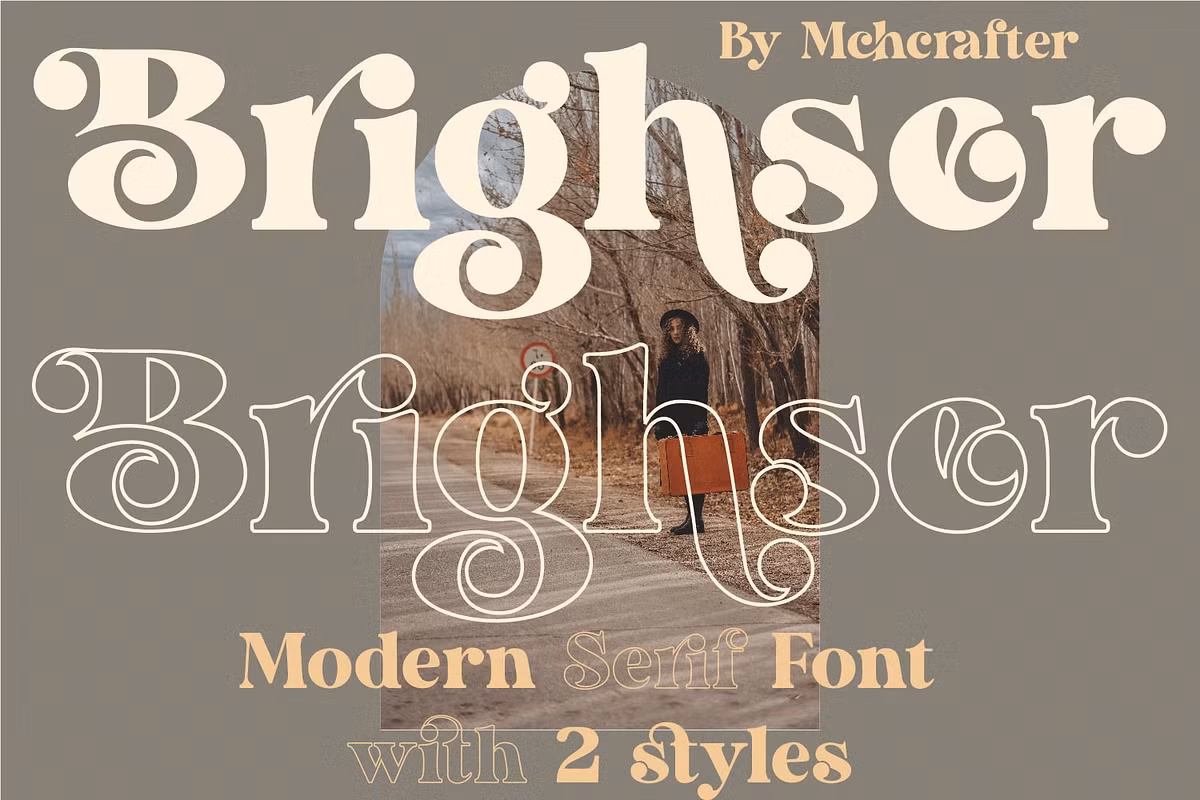
Brighser | Retro Serif Family Free Download
Brighser is a modern serif font family designed by MchCrafter, tailored specifically for branding applications. It features two distinct styles, each offering unique ligatures and alternate characters to enhance brand identity designs.
Design: Brighser combines uppercase and lowercase letters, numbers, punctuation, ligatures, and alternate characters, providing flexibility in design.
Usage: Ideal for logo design, print media, merchandise, and website graphics, Brighser adds a stylish and modern touch to branding projects.